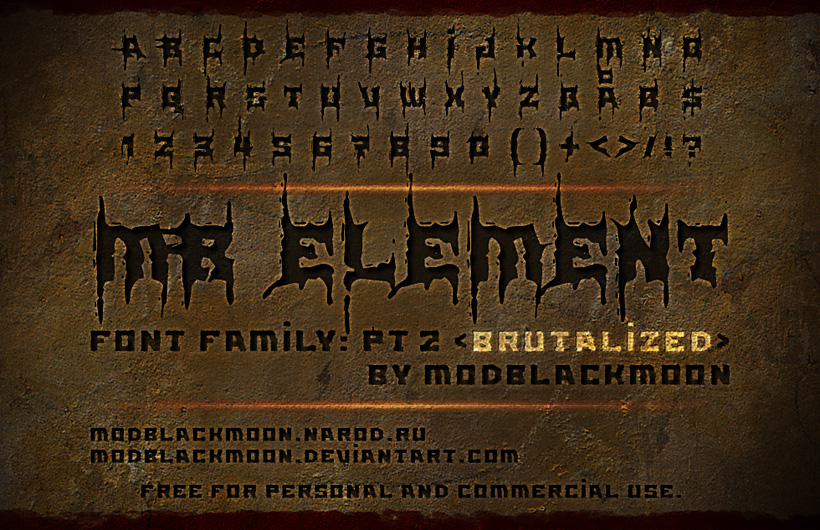
Font name: | MB Element Brutalized |
Author: | Irina ModBlackmoon |
Note by Irina ModBlackmoon | |
Spiked horror font. The second part of MB-Element set. |